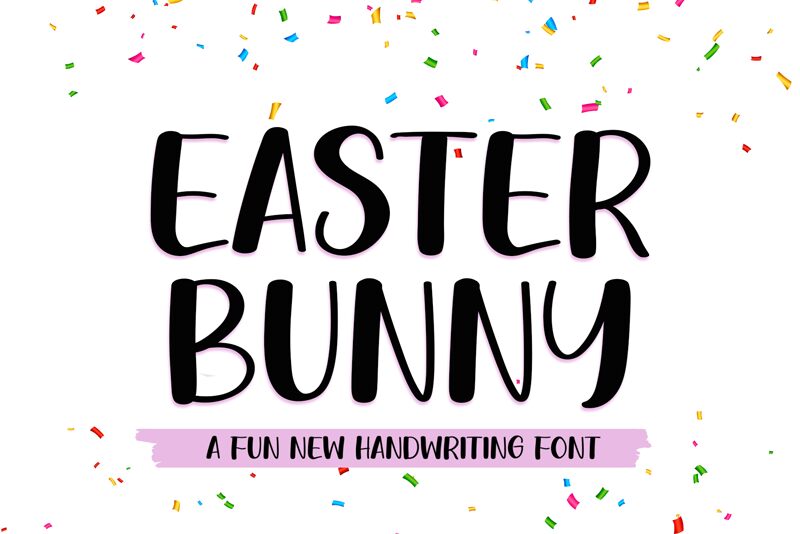
Easter Bunny typeface
Easter Bunny
This font retains a classy calligraphic influence while feeling contemporary and fresh. Its versatility will inspire a wide range of creative projects, from letterheads and titles to stationery.